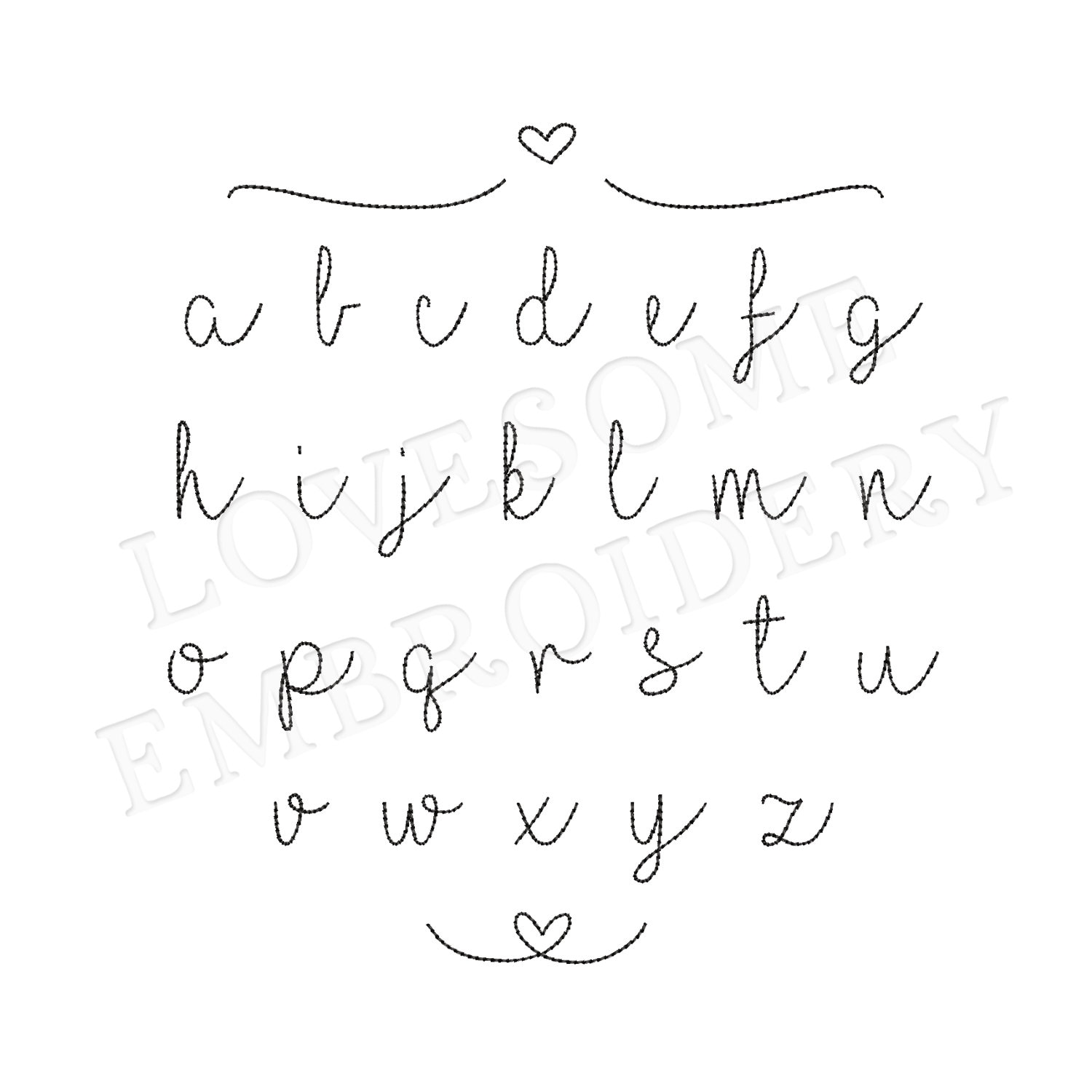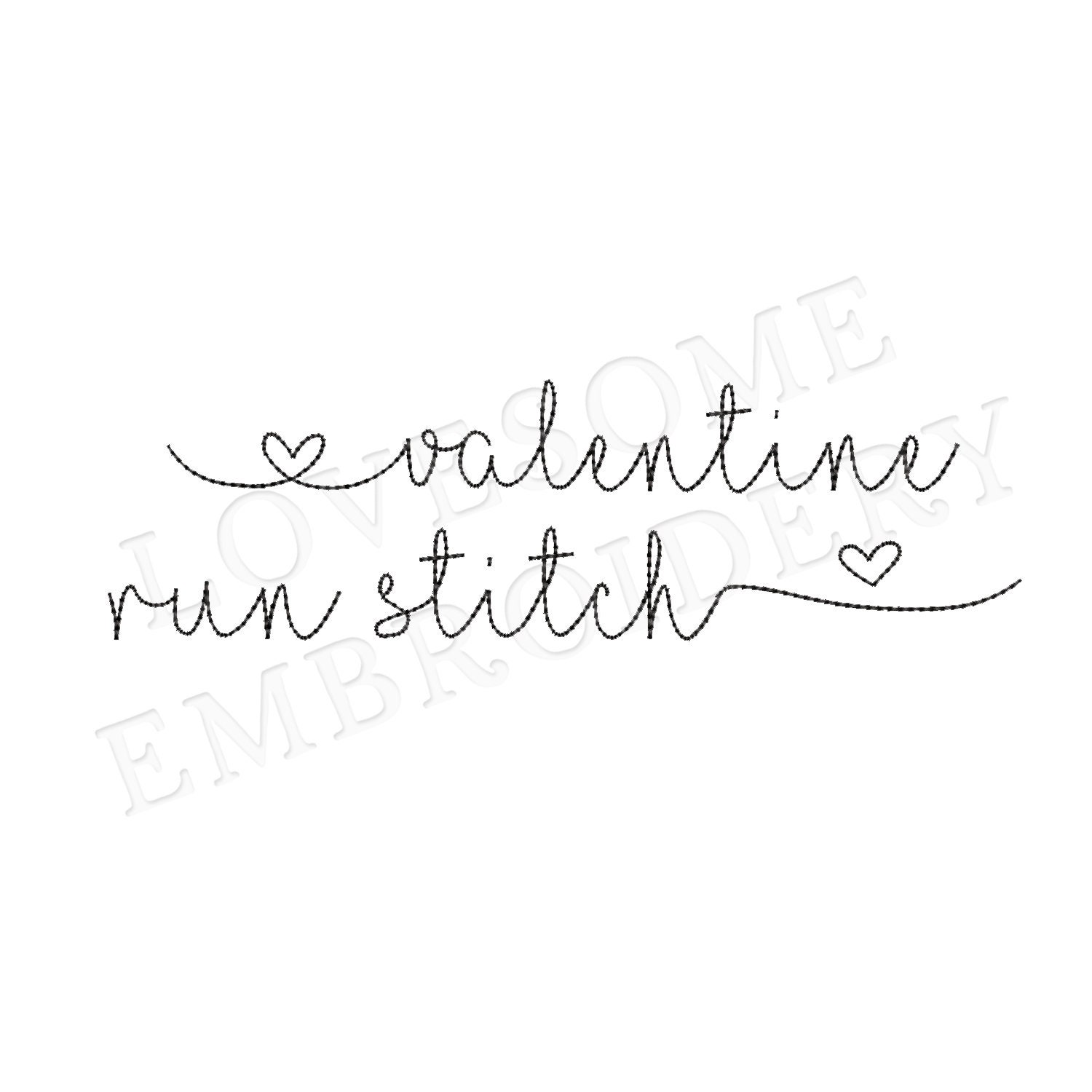
Valentine Script 0.5inch Bean Stitch Font A-Z, Cursive Run Stitch Font, Machine Embroidery Digital Download | Lovesome Embroidery
This listing features a machine embroidery font set which includes bean stitch embroidery files of 26 lowercase letters and a few extra in 0.5inch size. (For the whole set, pls see the listing images.)